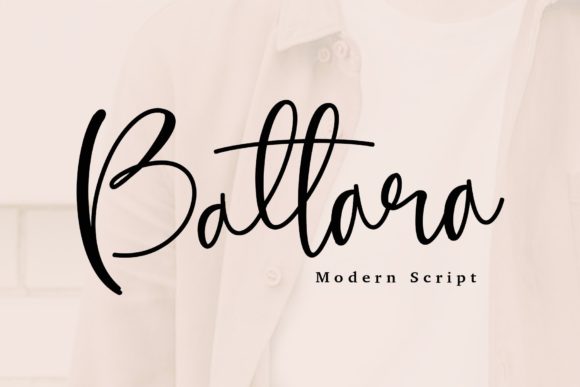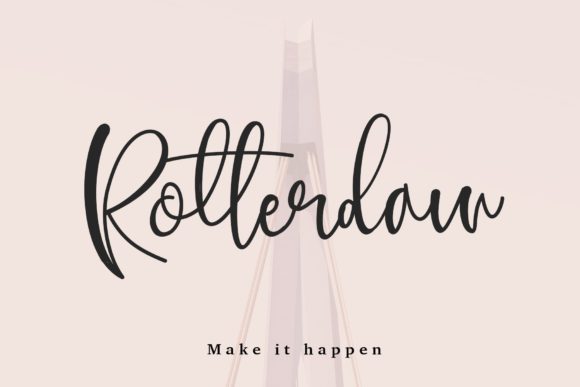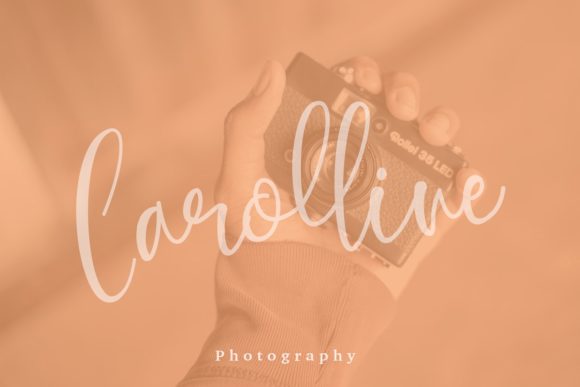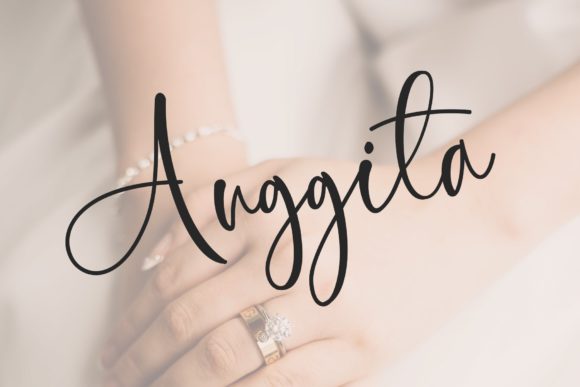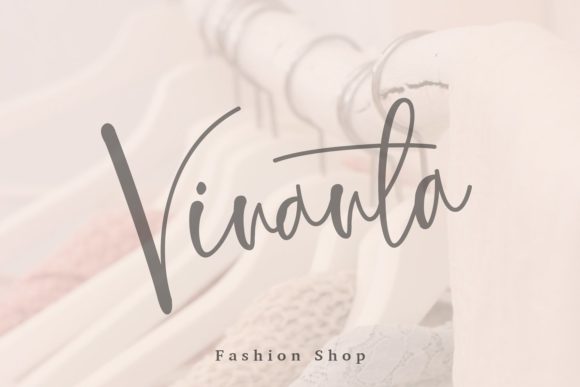
HomeScript FontsBattara Script Font Script Fonts Battara Script Font FacebookXPinterestWhatsApp Battara Script Font Poster 2 Battara Script Font Poster 3 Battara Script Font Poster 4 Battara Script Font Poster 5 About Battara Script Font Battara is a fun and cool handwrtiten font with a sweet feel. Get inspired by its unique charm! DOWNLOAD NOW People also explored Tomiley Font Elta Font Snow City Font Bromrose Sands Font Dirtstorm Gingerbread Font Hallimun Font Mercano Empire Lined Designer Font 319 0 TagsBattara Script Font Previous articleHumeira FontNext articleSnowing Font LEAVE A REPLY Cancel reply Comment: Please enter your comment! Name:* Please enter your name here Email:* You have entered an incorrect email address! Please enter your email address here Website: Save my name, email, and website in this browser for the next time I comment. Personal Use Free Valentines Day Personal Use Free Read more about this font Luxima Personal Use Free Read more about this font Monofonto Personal Use Free Read more about this font Amillina Monogram Personal Use Free Read more about this font BLOG Using Fonts in Digital Marketing: Tips to Strengthen Your Brand Identity In the realm of digital marketing, every visual element plays a crucial role in shaping a brand's identity, and fonts are no exception. The... 5 Fonts That Will Dominate Design Trends in 2026 Elegant Wedding Invitation Fonts – Handwritten & Script Fonts Free Fonts Risk: Why Free Fonts Can Be Dangerous for Designers